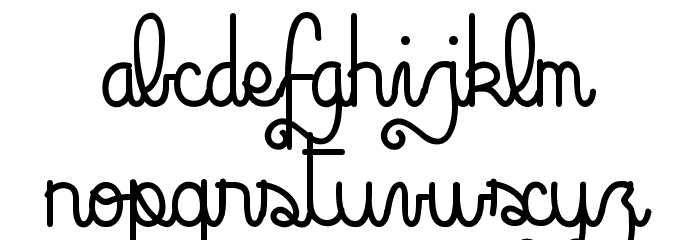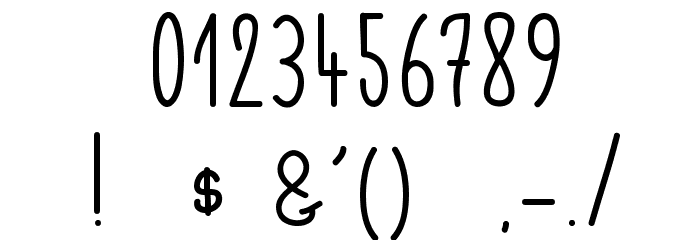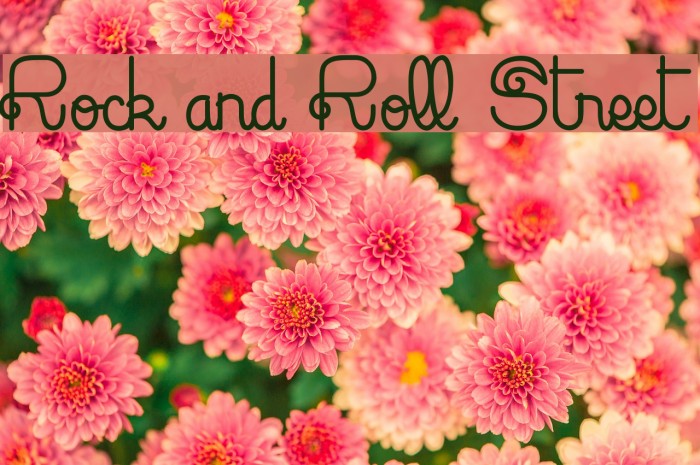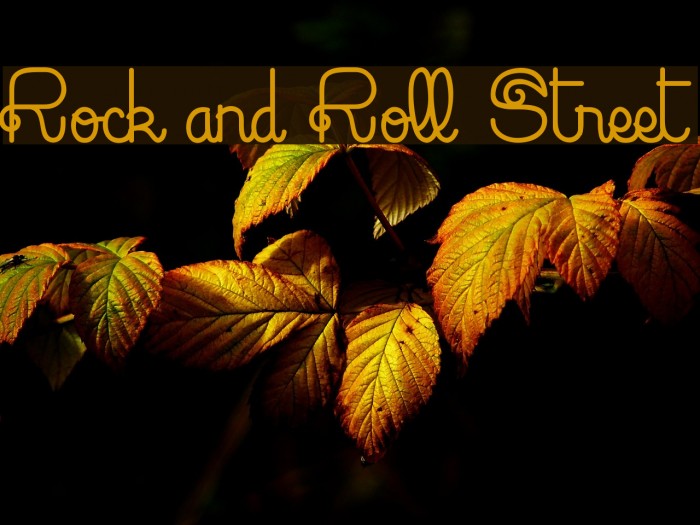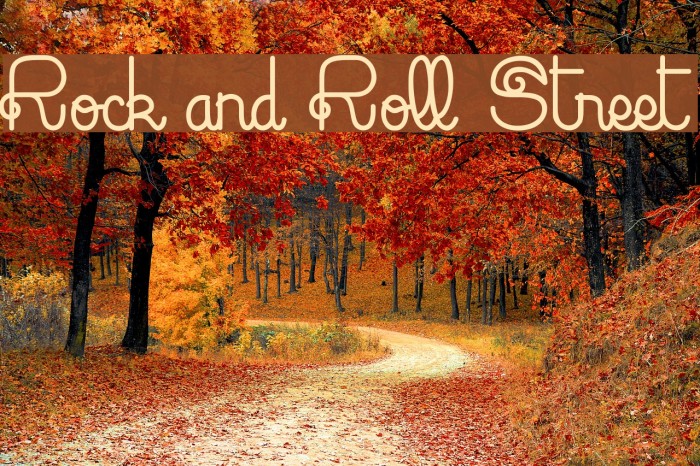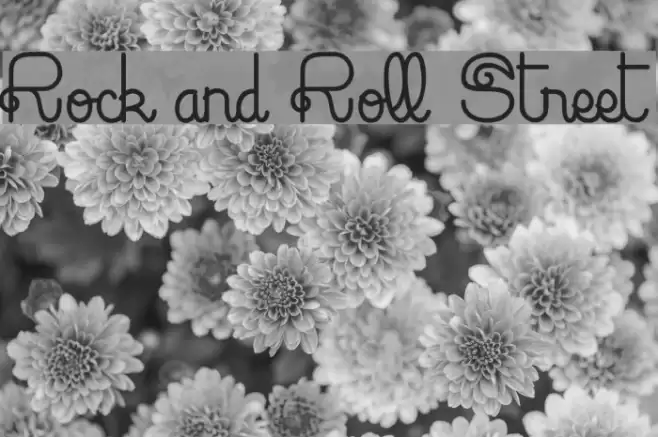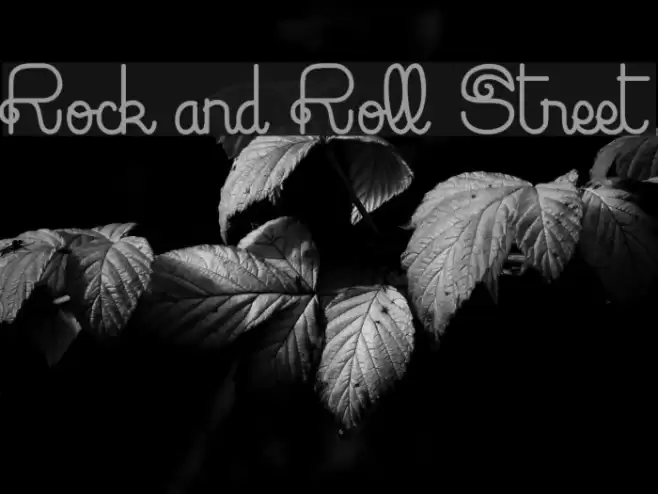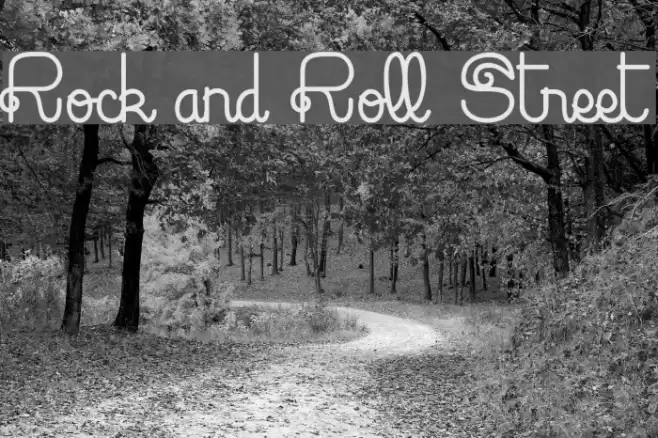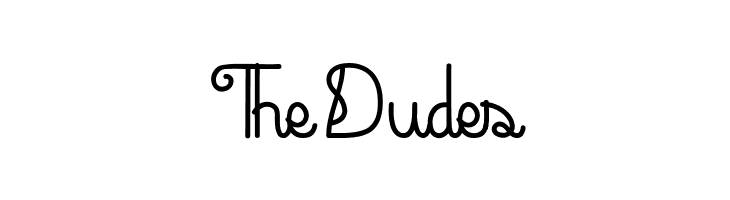
Rock and Roll Street Font
This font features a unique and playful design with a decorative flair. The uppercase letters are characterized by intricate curls and loops, giving them an artistic and whimsical appearance. The lowercase letters maintain a similar style, with some characters extending below the baseline, adding to the font's dynamic look. The numerals are consistent with the overall theme, featuring subtle curves and embellishments. Special characters are creatively designed, maintaining the font's cohesive style. This font is ideal for projects that require a touch of creativity and fun.
A decorative and whimsical font with intricate curls and loops.
- Font: Rock and Roll Street
- Proposed Projects: Ideal for creative projects such as invitations, posters, and branding materials that require a playful and artistic touch.
- Use Case: Headlines, Logos, Invitations